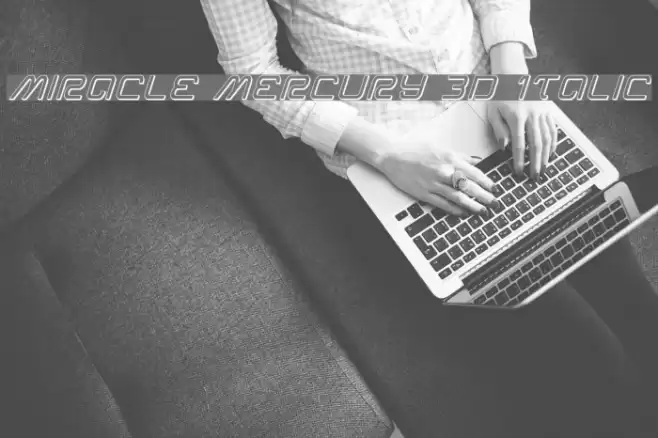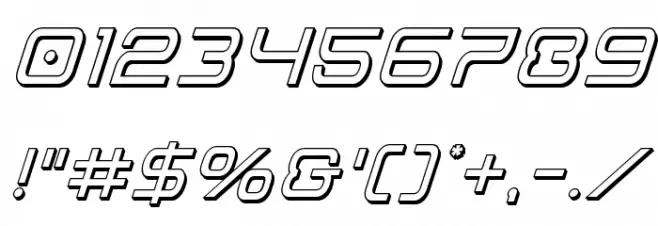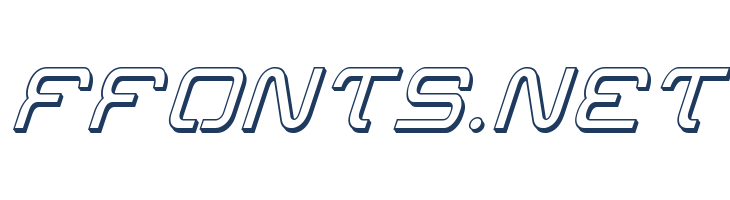
Miracle Mercury 3D Italic Font
Miracle Mercury 3D Italic Description
This font features a bold, futuristic design with a 3D effect that gives it a dynamic and modern appearance. The characters are outlined, creating a sense of depth and movement. The uppercase letters are consistent in height, with a slight slant that adds to the italicized look. The numerals and special characters maintain the same stylistic approach, ensuring uniformity across all elements. The font's geometric structure and clean lines make it suitable for projects that require a contemporary and eye-catching aesthetic.
A bold, 3D italic font with a futuristic and dynamic style from Uncategorized fonts.
- Proposed Projects: Ideal for sci-fi themed designs, video game titles, tech branding, and modern posters.